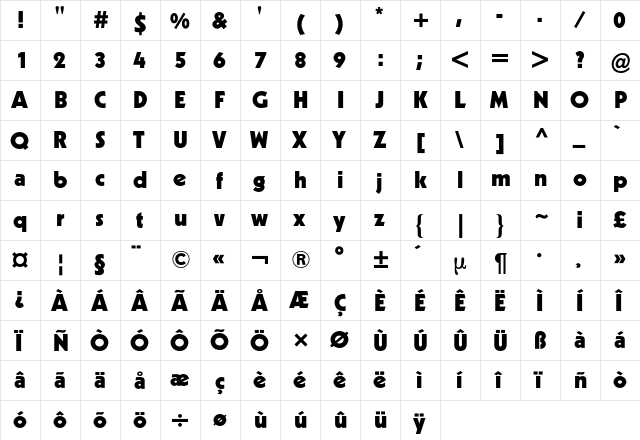
Kabel BQ Regular Font Preview
Kabel BQ Regular
Kabel BQ Regular Font Details
Design Context for Kabel BQ Typeface
Kabel BQ takes a measured approach to typography — its balanced proportions and neutral character make it a reliable workhorse for both digital and print work.